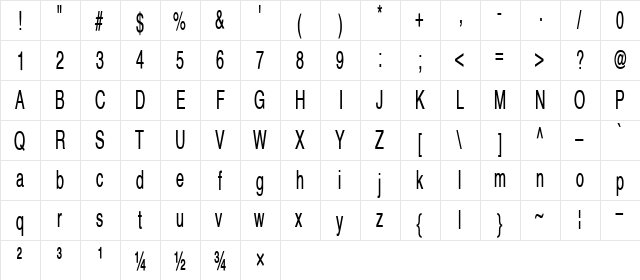
Everest Regular
Design Context for Everest Typeface
Everest takes a measured approach to typography — its balanced proportions and neutral character make it a reliable workhorse for both digital and print work.
Pro Tip: Use Everest in both headline and body roles to test its range before committing to a single application.